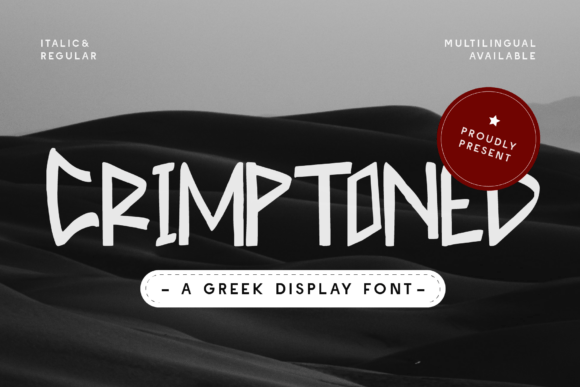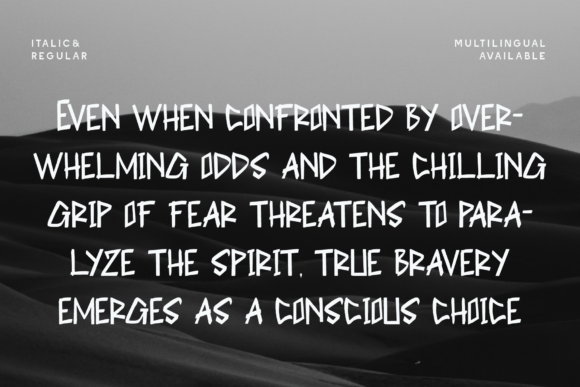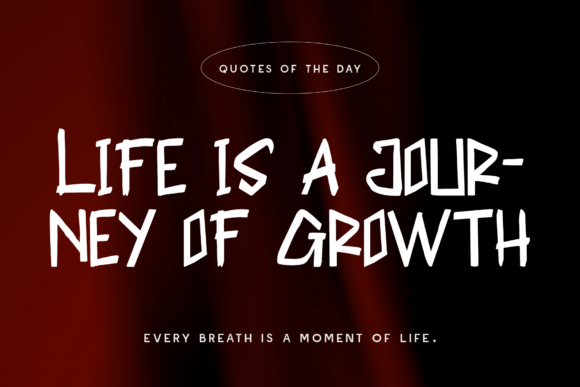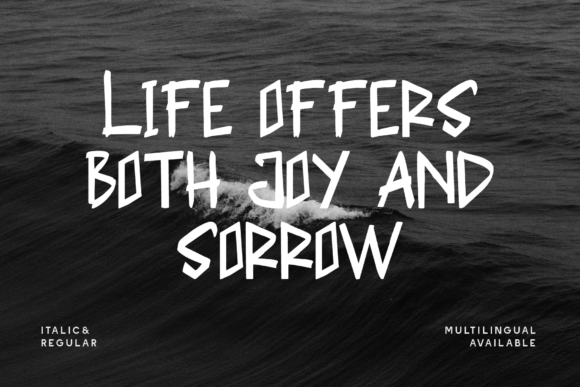
Crimptoned Font: Bold Display Typography for Mythological Branding
About the Crimptoned Font
The Crimptoned Font is here to transform your projects with its distinctive character and style. Introducing Crimptoned, a Greek-inspired display font that blends ancient character with modern edge. With sharp, chiseled strokes and a raw, angular rhythm, this typeface channels the essence of classical stone carvings while keeping a rebellious, contemporary twist.
Crimptoned is made for bold branding, ancient-meets-modern aesthetics, mythological themes, and designs that command a presence. Use it on posters, games, logos, or editorial layouts that dare to be different and timeless at once.
Crimptoned excels in headline applications, logos, and short-form text for packaging or posters where its bold, rebellious character can make a strong statement. Its angular forms and strong weight are not suitable for body copy or long-form text; readability suffers at smaller sizes. Avoid using it in user interfaces (UI) where legibility is paramount.
The font’s raw energy pairs well with clean sans-serif fonts like Futura or Gill Sans for a balanced contrast between modern and classic. For a more playful approach, consider pairing it with a rounded geometric sans-serif. Alternatively, a classic serif like Garamond can add a touch of sophistication, tempering Crimptoned’s raw edge.
Crimptoned projects a powerful, rebellious, yet sophisticated personality. Brands seeking to convey a sense of heritage with a modern twist, or those with a strong, confident voice, will find it particularly effective. Think high-end spirits, fashion brands with a strong visual identity, or projects related to history, mythology, or architecture.